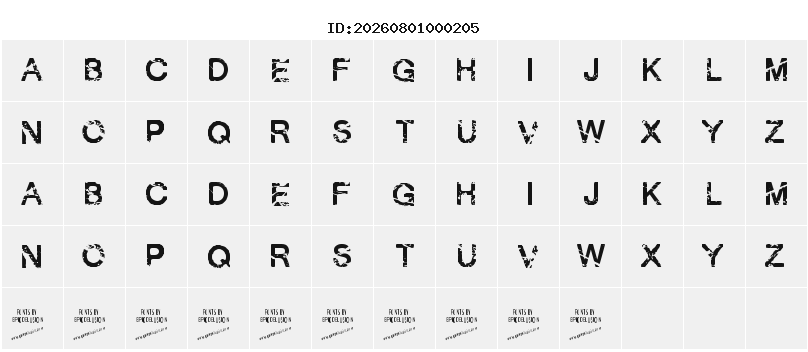
Last Years Youth Preview
• Font Name: Last Years Youth
• Designer: Tom Kolodziejski
About Last Years Youth.ttf
Last Years Youth.ttf is a modern, elegant sans-serif font designed for ultimate readability and visual harmony. Perfect for branding, headlines, web design, and print materials.